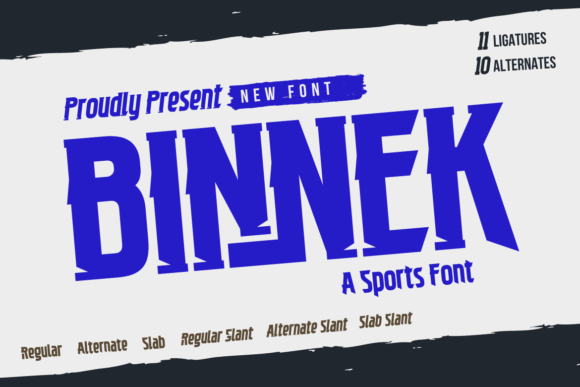
Introducing Binnek Font, the game-changing display font transforming PowerPoint presentations. Step into the world of captivating slides and leave your audience spellbound. Binnek's versatility isn't just limited to PowerPoint; it's a champion in outdoor advertising, where its sharp edges and beveled variations command attention.
Binnek is the ultimate font for the sports enthusiast. Its dynamic character captures the thrill of competition and the energy of the crowd. Let Binnek carry your message across the finish line.
Visualize your brand soaring high with Binnek as your trusted wingman. Its contemporary tone propels your message forward, ensuring you stay ahead of the pack. Binnek isn't just a font; it's a statement of boldness and authority.
In a world craving distinctiveness, Binnek stands tall. Embrace its versatility and let your creativity run wild. From sleek sans-serif to rugged slabs, Binnek adapts seamlessly to your every need. Whether you're scaling mountains or navigating urban landscapes, Binnek is your steadfast companion.
Utilizing Binnek is a declaration of intent, a testament to your commitment to excellence. Its high-speed capabilities ensure your message cuts through the noise and reaches its destination with impact. The sharp edges of Binnek convey precision and determination, leaving no room for ambiguity.
Dare to be different, dare to make a statement. Let Binnek be your secret weapon, your path to PowerPoint domination. Its contemporary appeal ensures you stay relevant, while its versatility guarantees boundless creative possibilities.
Binnek Font is more than just a font; it's an experience, a journey of endless potential. Embrace its power and watch your presentations soar to new heights.